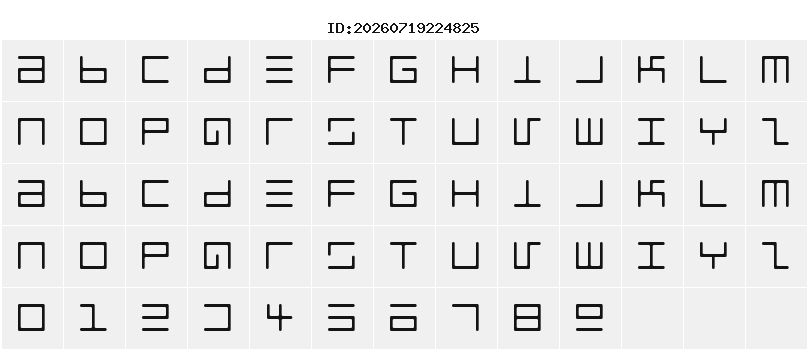
Eppy Evans Round Light Preview
About Eppy Evans Round Light.ttf
Eppy Evans Round Light.ttf is a modern, elegant sans-serif font designed for ultimate readability and visual harmony. Perfect for branding, headlines, web design, and print materials.